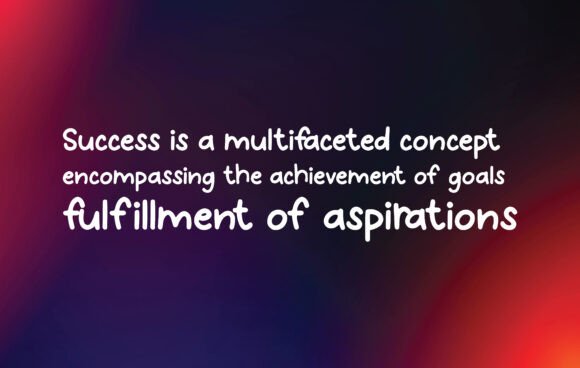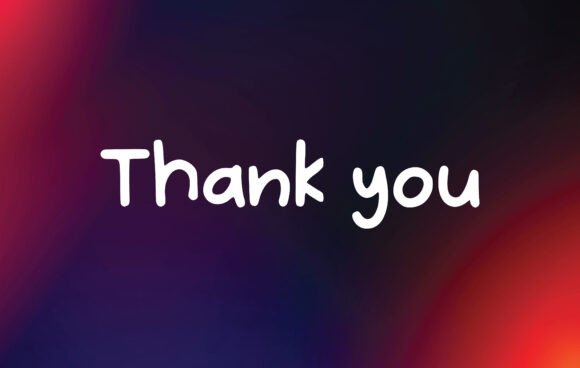
Introduction to Samira Font
Samira is a lovely and beautiful handwritten font.
Key Features of Samira Font
Why Choose Samira Font?
Samira Font offers exceptional quality and versatility, making it a valuable addition to your design toolkit. Whether you’re creating for personal projects or commercial use, Samira Font delivers professional results.